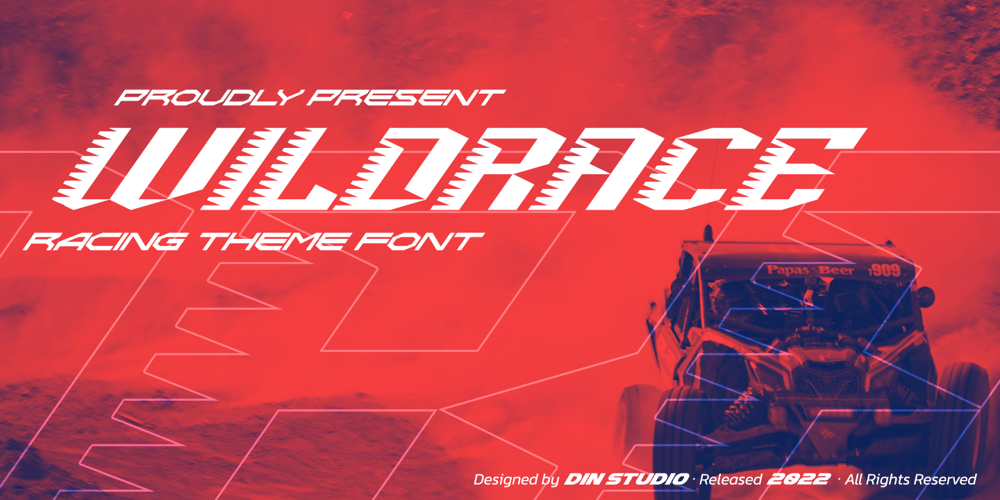
Wildrace Font Family was designed by Donis Miftahudin and published by Din Studio. Wildrace contains 1 styles and family package options. Get ready to be bold and elegant at the same time. It’s time to see Wildrace, a display font created in capital letters with the racing theme. The font’s character is the thick letters formed similar to rectangles to give strong impressions. Therefore, it will be more noticeable and match the large-sized texts. Wildrace also provides interesting features to enjoy. Features: Multilingual Supports PUA Encoded Numerals and Punctuation Use Wildrace for any design projects such as posters, banners, logos, book covers, headings, printed products, merchandise, social media, etc. Find out more ways to use this font by taking a look at the font preview.Purchase now. Happy designing.